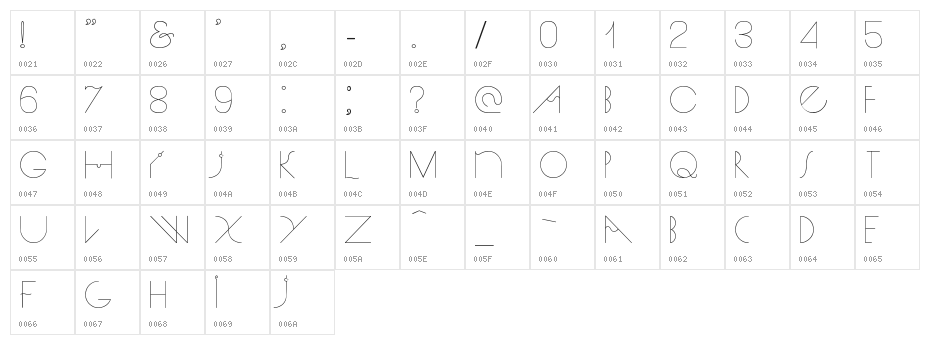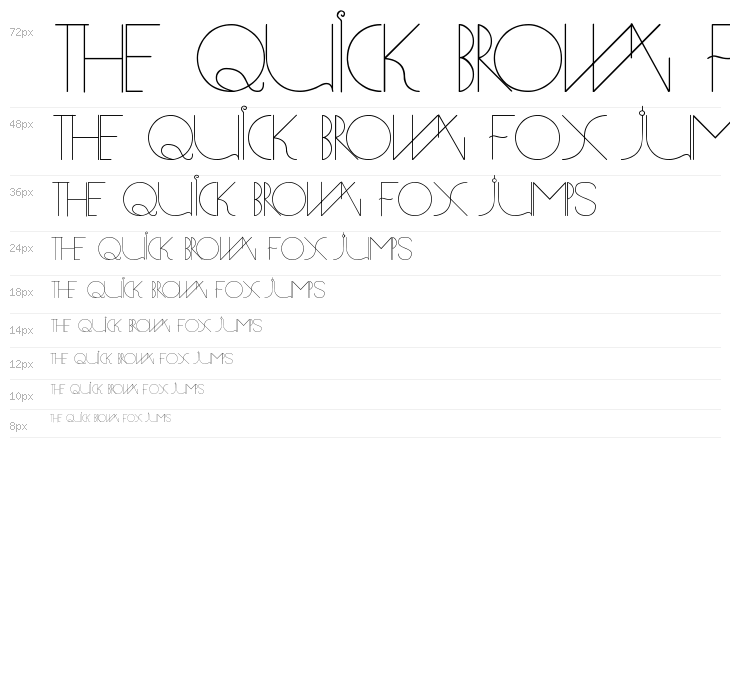
Spike Font
Spike Description
This font features a highly decorative and modern style with a unique geometric flair. Each character is crafted with thin, elegant lines and incorporates unexpected curves and angles, creating a sense of movement and dynamism. The uppercase letters are particularly striking, with some characters featuring elongated strokes and others showcasing intricate loops and swirls. The lowercase letters maintain the same aesthetic, offering a cohesive look across the typeface. Numbers and special characters are designed with the same attention to detail, ensuring consistency throughout. The font's overall appearance is sleek and sophisticated, making it ideal for projects that require a touch of elegance and creativity.
Proposed ProjectsIdeal for branding, editorial design, fashion magazines, and creative posters.